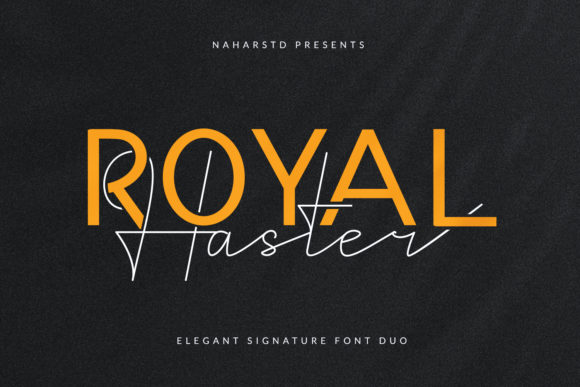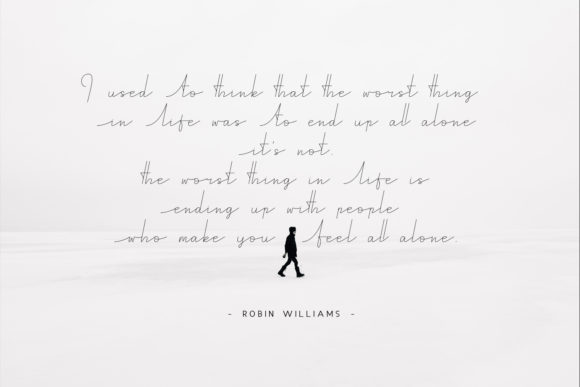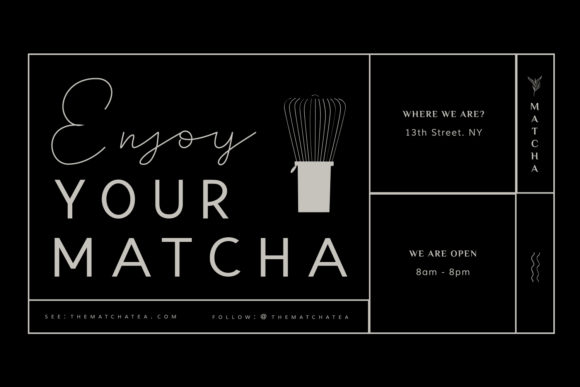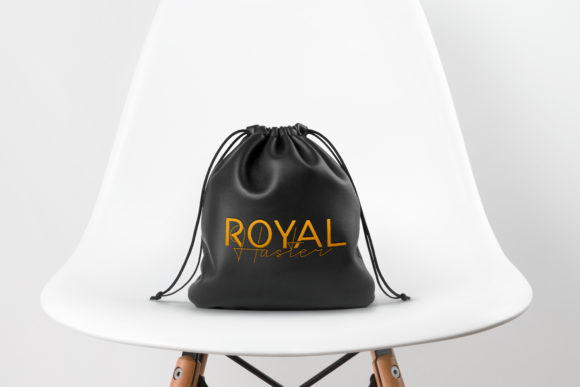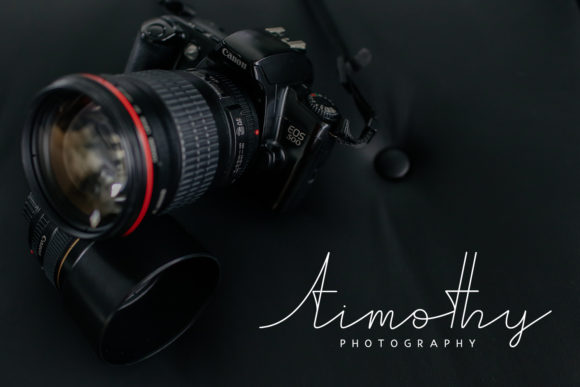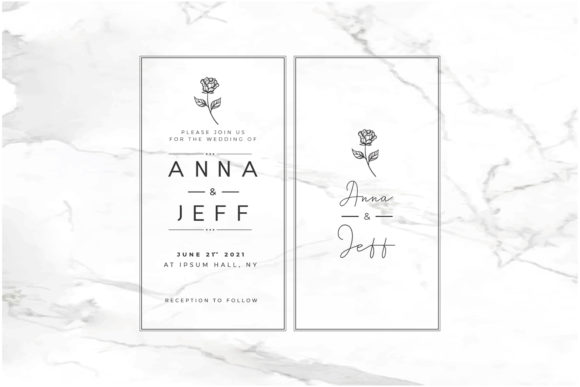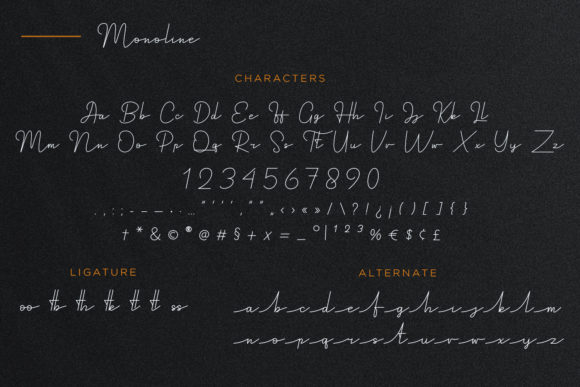
Royal Haster Font
About Royal Haster Font
Royal Haster is an equally fun and elegant font duo that brings together to stunning fonts. While the script feels beautifully fancy, the sans serif version will add a luxurious vibe to your next design. Combine them easily to achieve stunning results.